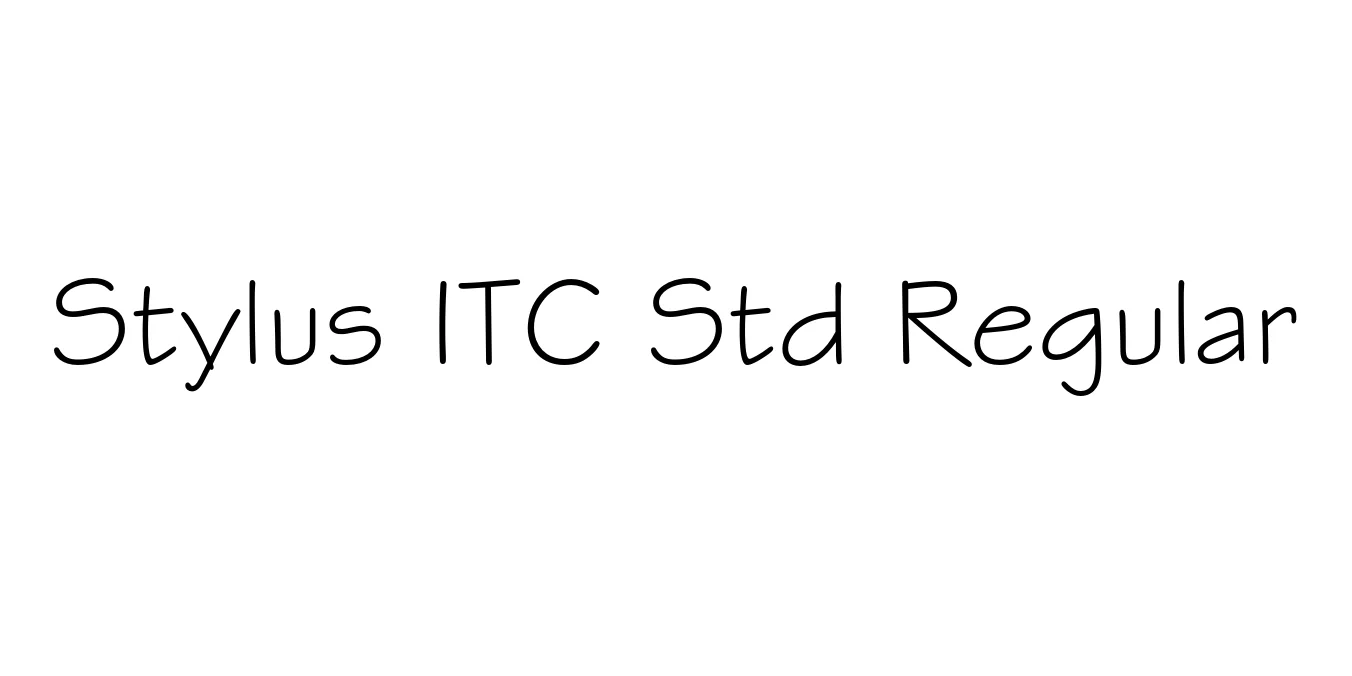
Stylus ITC Std Regular
Designed by Dennis Pasternak
| Category | Handwritten Architectural Script |
| Designer | Dennis Pasternak |
Stylus ITC was designed by Dennis Pasternak and released by the International Typeface Corporation in 1995. The typeface was born out of a desire to replicate the precise yet informal lettering historically found on architectural blueprints and technical drafts. It captures the essence of a professional drafting pen, offering a clean, humanistic alternative to the rigid geometric sans-serifs that dominated the late 20th-century design landscape, providing a nostalgic nod to pre-CAD manual drafting.
Visually, Stylus ITC is characterized by a consistent monolinear stroke weight and a generous x-height that ensures exceptional legibility even at smaller point sizes. Its letterforms are narrow and slightly condensed, echoing the spatial constraints of hand-annotated plans. The absence of excessive flourishes allows the strokes to maintain clarity, while the subtle variations in terminals and the upright posture provide the organic warmth necessary for casual branding and informative layouts without sacrificing professional structure.
Stylus ITC Std Regular Best Uses
Ideal for blueprints and site plans requiring a human touch.
Perfect for coffee shops or boutique labels seeking a handcrafted look.
Provides an approachable and legible vibe for instructional handouts.
Works well for tooltips and notes needing a distinct handwritten feel.